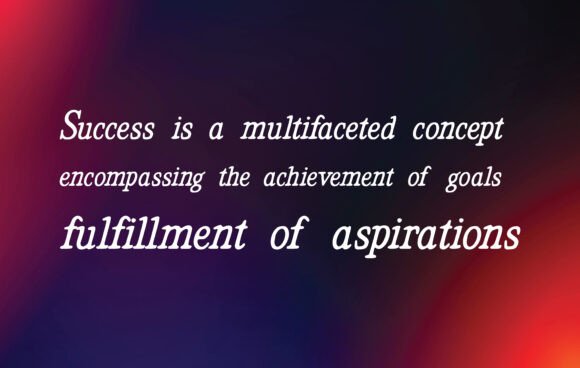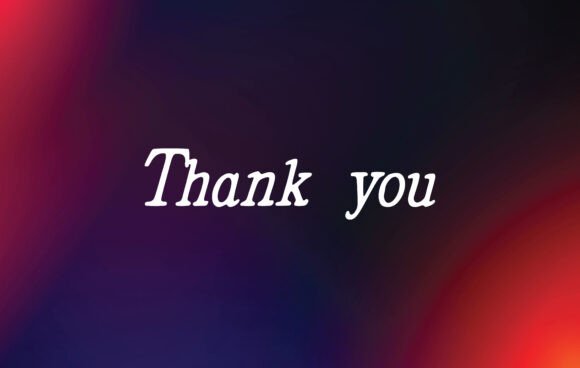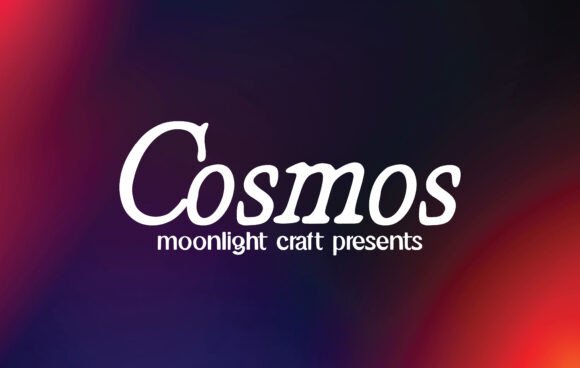
Introducing Cosmos Font: Elevate Your Creative Projects with Style and Versatility
Are you on the hunt for a font that can effortlessly elevate your creative projects? Look no further than Cosmos Font! This stunning font is designed to become a staple in your collection, offering the perfect blend of style, versatility, and readability. Whether you’re a designer, crafter, or DIY enthusiast, Cosmos Font is sure to become your go-to favorite.
A Font that’s Easy to Read and Versatile
One of the standout features of Cosmos Font is its exceptional readability. Its clean lines, balanced proportions, and carefully crafted letterforms make it a joy to read, whether it’s used for titles, body text, or any other application. This font works beautifully for both headlines and paragraphs, making it an excellent choice for a wide range of projects.
Cosmos Font’s versatility is another one of its key strengths. Its neutral yet stylish design allows it to seamlessly integrate into various contexts, from elegant and sophisticated to playful and creative. Whether you’re designing magazine headlines, t-shirts, social media posts, branding materials, wedding invitations, or greeting cards, this font fits right in.
As a designer or crafter, you’re likely always on the lookout for fonts that can help you create stunning and effective designs. Cosmos Font delivers on this front, offering endless possibilities for creative expression. Here are just a few ideas to get you started:
- Magazine Headlines: Use Cosmos Font to create eye-catching headlines that grab readers’ attention and draw them into your story.
- T-Shirts and Apparel: Add a touch of style and sophistication to your t-shirt designs with Cosmos Font, perfect for quotes, slogans, or branding.
- Social Media Posts: Elevate your social media game with Cosmos Font, using it to create engaging and shareable content that stands out in crowded feeds.
- Branding Materials: Establish a strong brand identity with Cosmos Font, using it for logos, business cards, and other marketing materials.
- Wedding Invitations and Greeting Cards: Add a touch of elegance and whimsy to your wedding invitations and greeting cards with Cosmos Font, perfect for special occasions.
Why Choose Cosmos Font?
With so many fonts available, why choose Cosmos Font? Here are just a few reasons why this font stands out from the crowd:
- Unique Style: Cosmos Font boasts a distinctive style that’s both modern and timeless, making it perfect for designers and crafters looking to create unique and memorable designs.
- Exceptional Readability: This font is designed to be easy to read, even at small sizes, making it perfect for body text and other applications where legibility is key.
- Versatility: Cosmos Font works beautifully in a wide range of contexts, from digital designs to print materials, making it a great addition to any design collection.
Get Ready to Elevate Your Designs with Cosmos Font
In conclusion, Cosmos Font is a must-have for designers and crafters looking to add a touch of style and versatility to their creative projects. Its exceptional readability, versatility, and unique style make it the perfect choice for a wide range of applications. Whether you’re designing magazine headlines, t-shirts, social media posts, or branding materials, Cosmos Font is the perfect font to help you achieve your design goals.